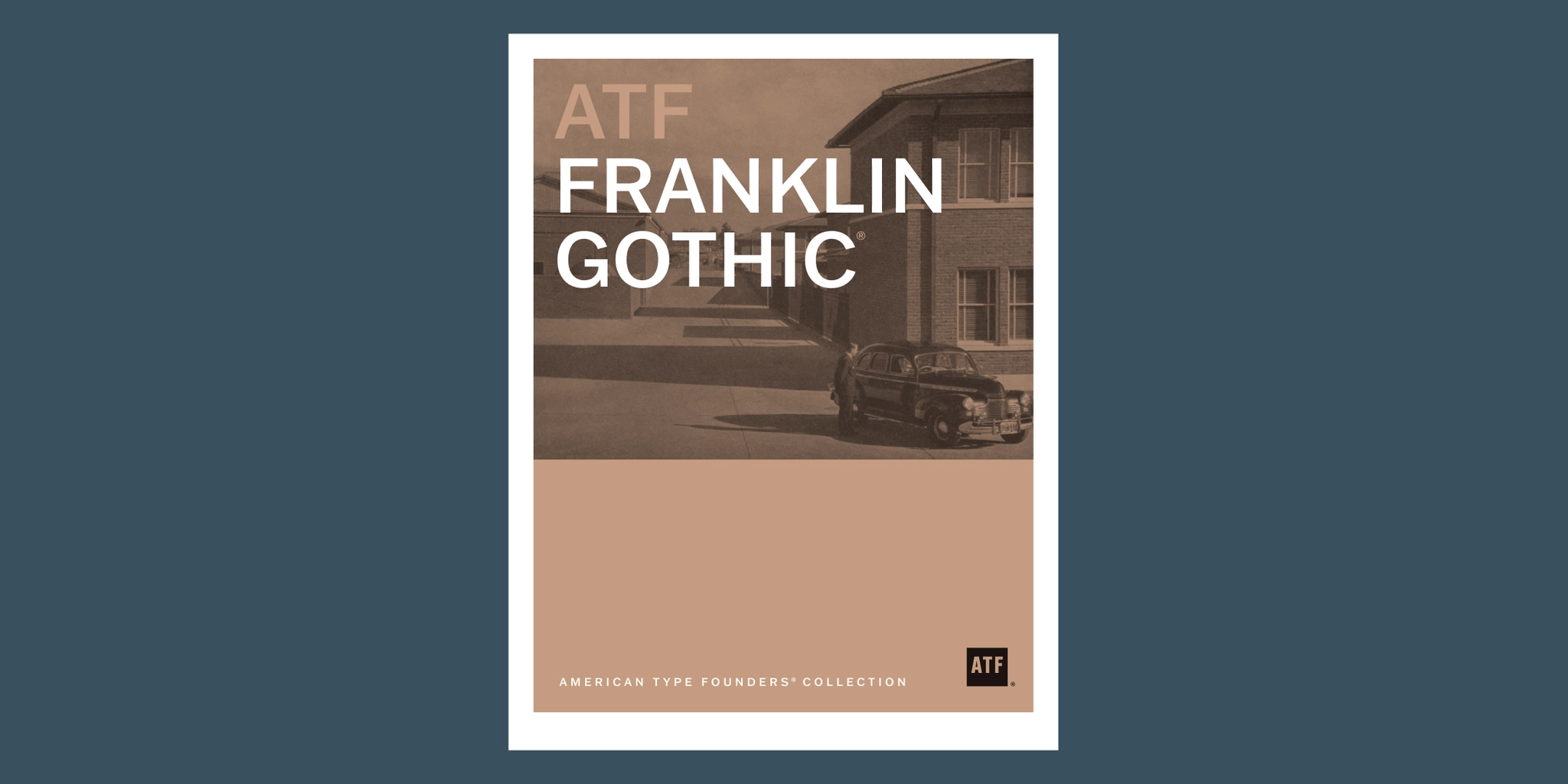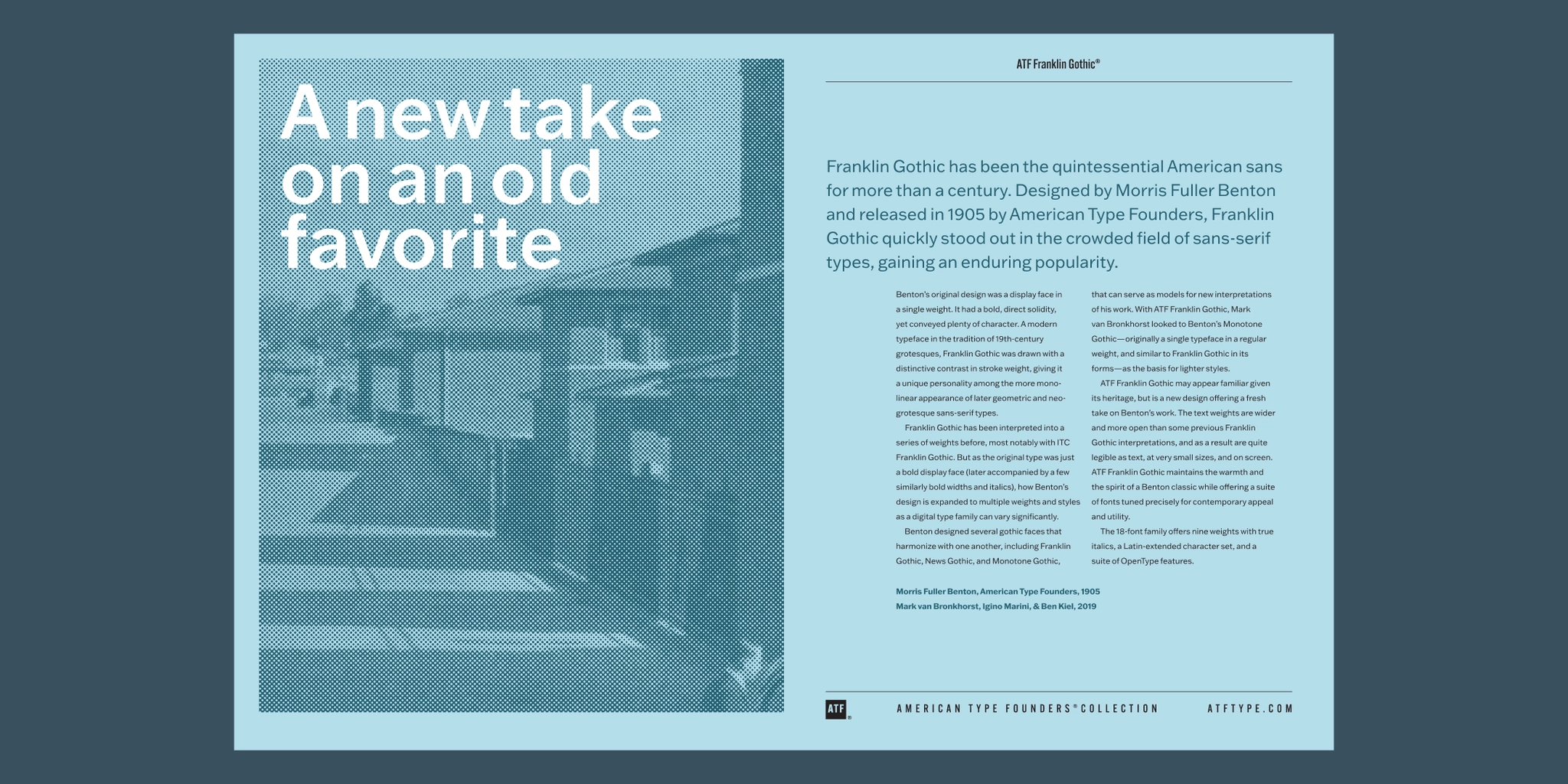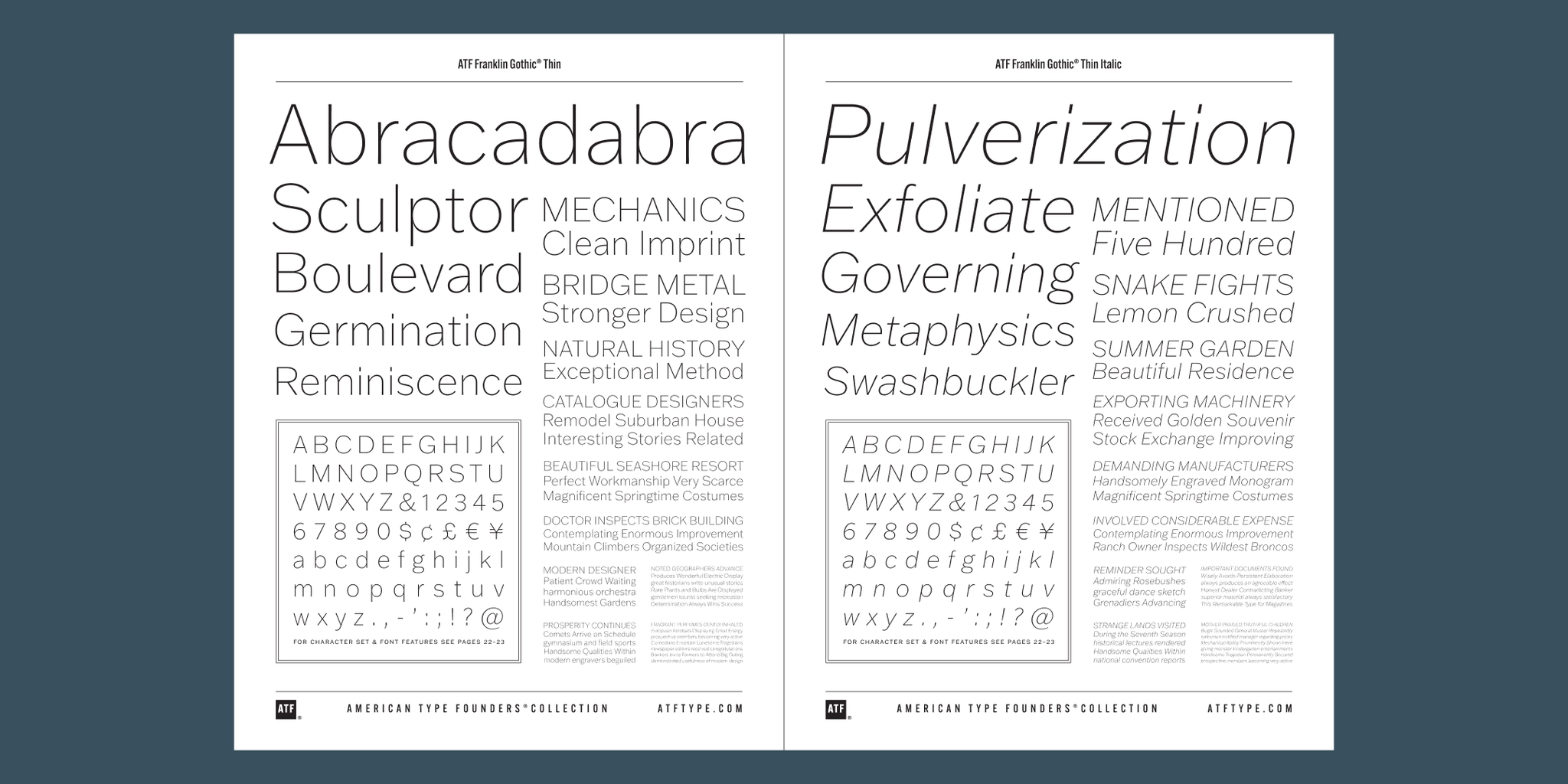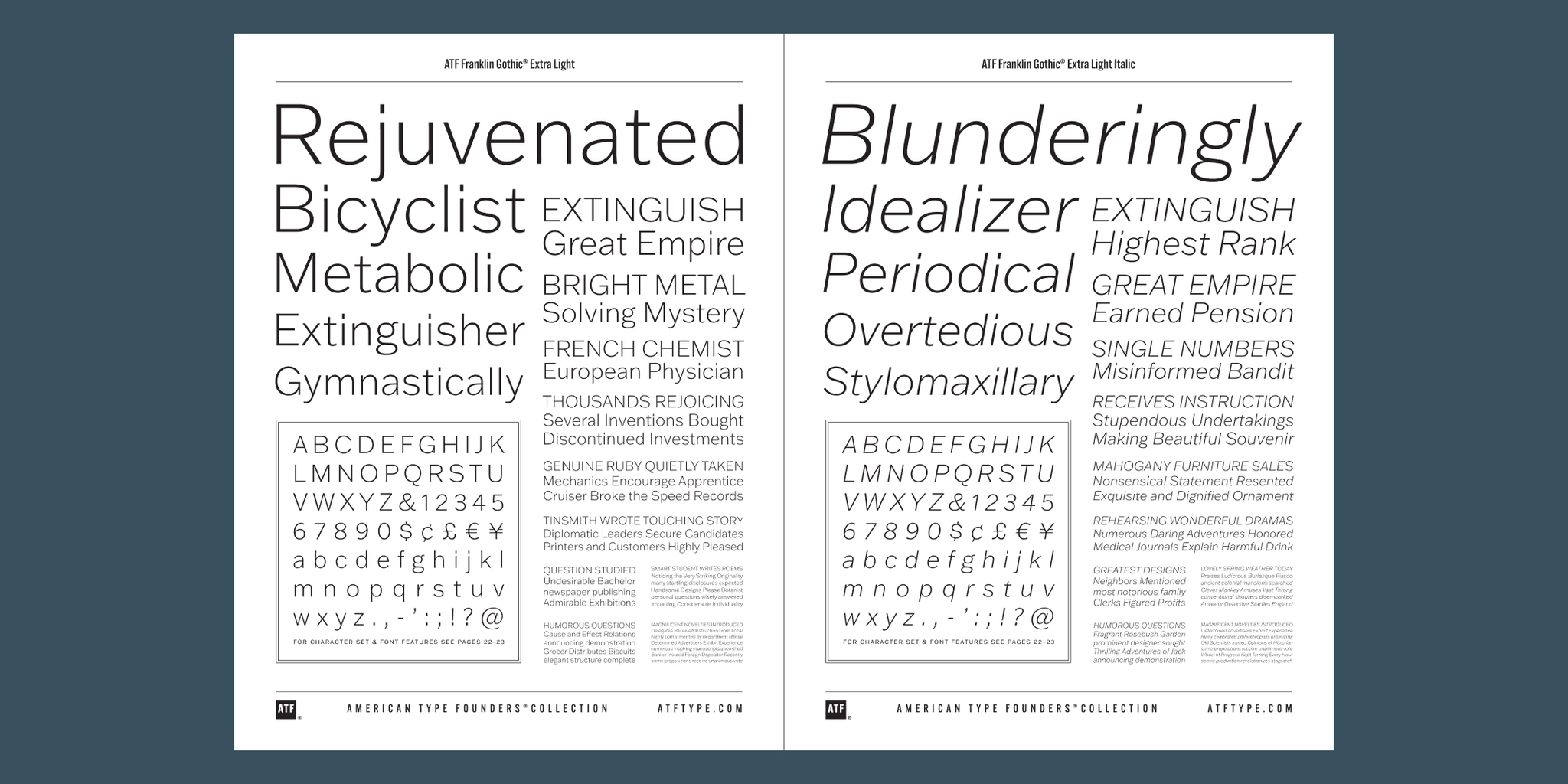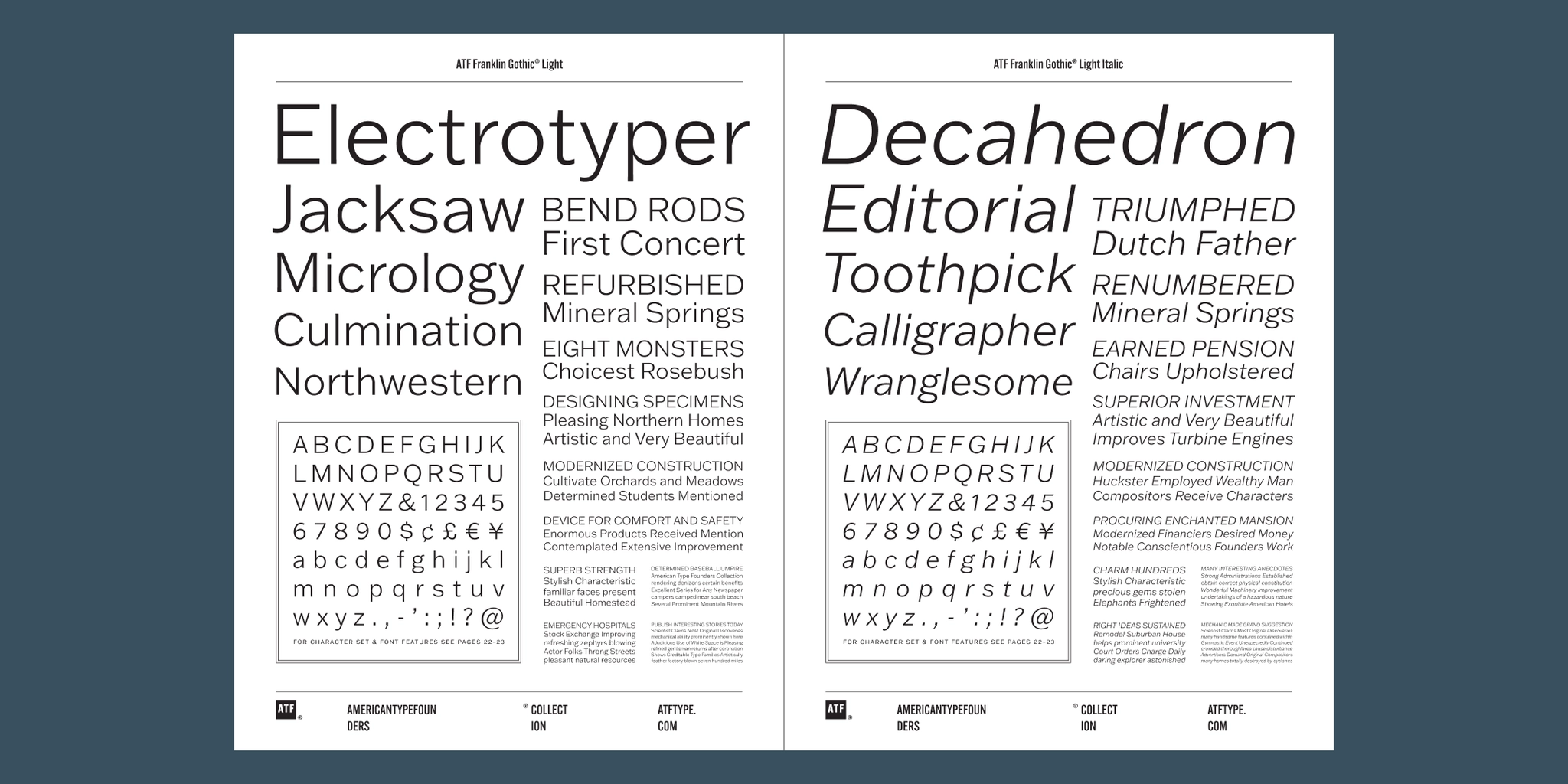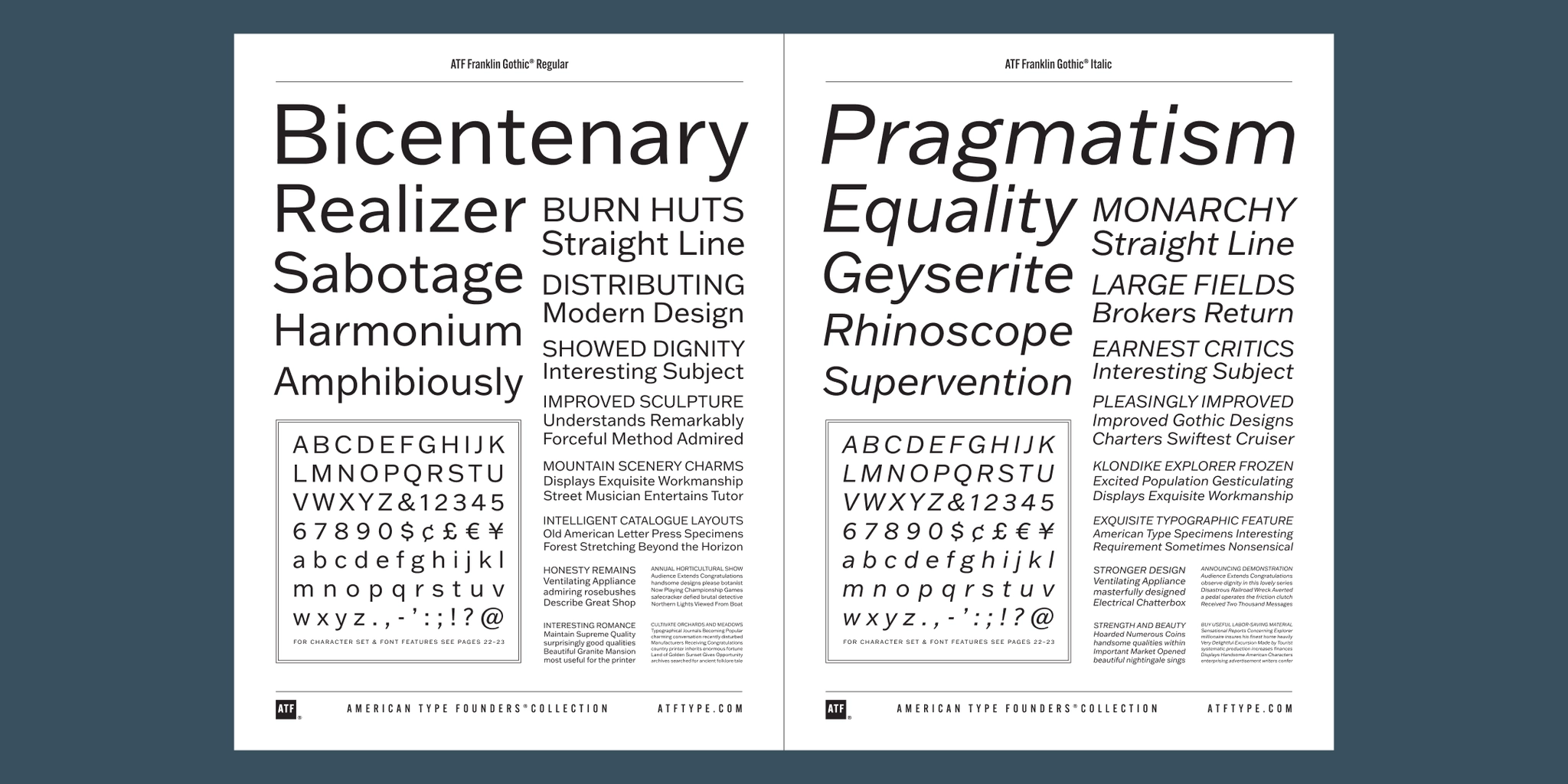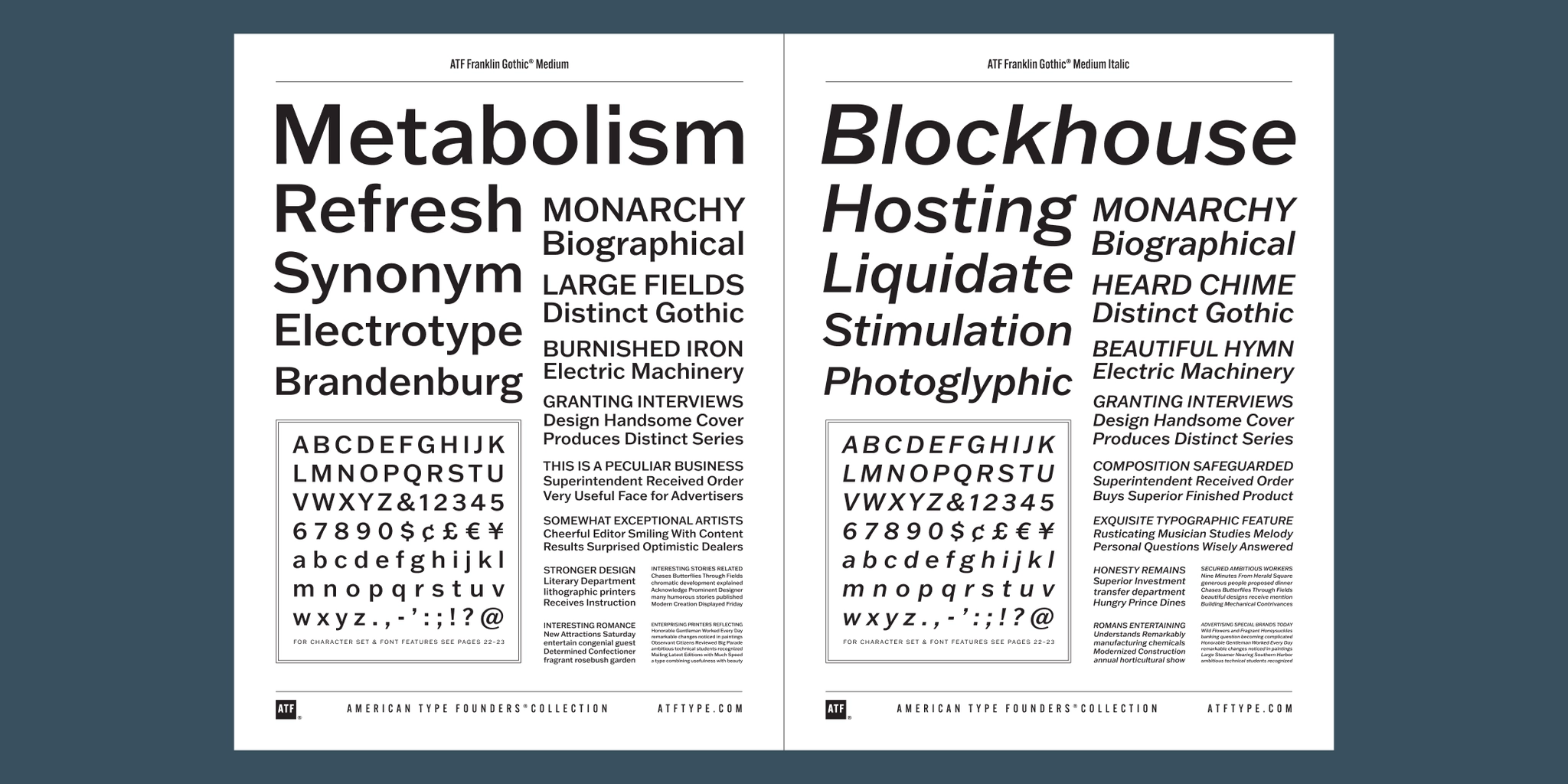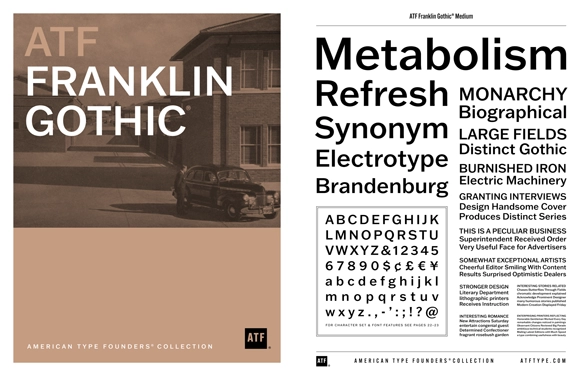
Franklin Gothic Font Family
Designed by Morris Fuller Benton, Mark Van Bronkhorst, Igino Marini, and Ben Kiel.
1905 and 2019.
The American Type Founders collection was developed by Mark van Bronkhorst.
Franklin Gothic is the quintessential American sans serif font family. Designed by Morris Fuller Benton in 1905. Made for strong, readable text and headlines alike.
Franklin Gothic has been the quintessential American sans for more than a century. Designed by Morris Fuller Benton and released in 1905 by American Type Founders, Franklin Gothic quickly stood out in the crowded field of sans-serif types, gaining an enduring popularity.
Benton’s original design was a display face in a single weight. It had a bold, direct solidity, yet conveyed plenty of character. A modern typeface in the tradition of 19th-century grotesques, Franklin Gothic was drawn with a distinctive contrast in stroke weight, giving it a unique personality among the more monolinear appearance of later geometric and neo-grotesque sans-serif types.
Franklin Gothic has been interpreted into a series of weights before, most notably with ITC Franklin Gothic. But as the original type was just a bold display face (later accompanied by a few similarly bold widths and italics), how Benton’s design is expanded to multiple weights and styles as a digital type family can vary significantly.
Benton designed several gothic faces that harmonize with one another, including Franklin Gothic, News Gothic, and Monotone Gothic, that can serve as models for new interpretations of his work. With ATF Franklin Gothic, Mark van Bronkhorst looked to Benton’s Monotone Gothic — originally a single typeface in a regular weight, and similar to Franklin Gothic in its forms — as the basis for lighter styles.
ATF Franklin Gothic may appear familiar given its heritage, but is a new design offering a fresh take on Benton’s work. The text weights are wider and more open than some previous Franklin Gothic interpretations, and as a result are quite legible as text, at very small sizes, and on screen. ATF Franklin Gothic maintains the warmth and the spirit of a Benton classic while offering a suite of fonts tuned precisely for contemporary appeal and utility.
The 18-font family offers nine weights with true italics, a Latin-extended character set, and a suite of OpenType features.